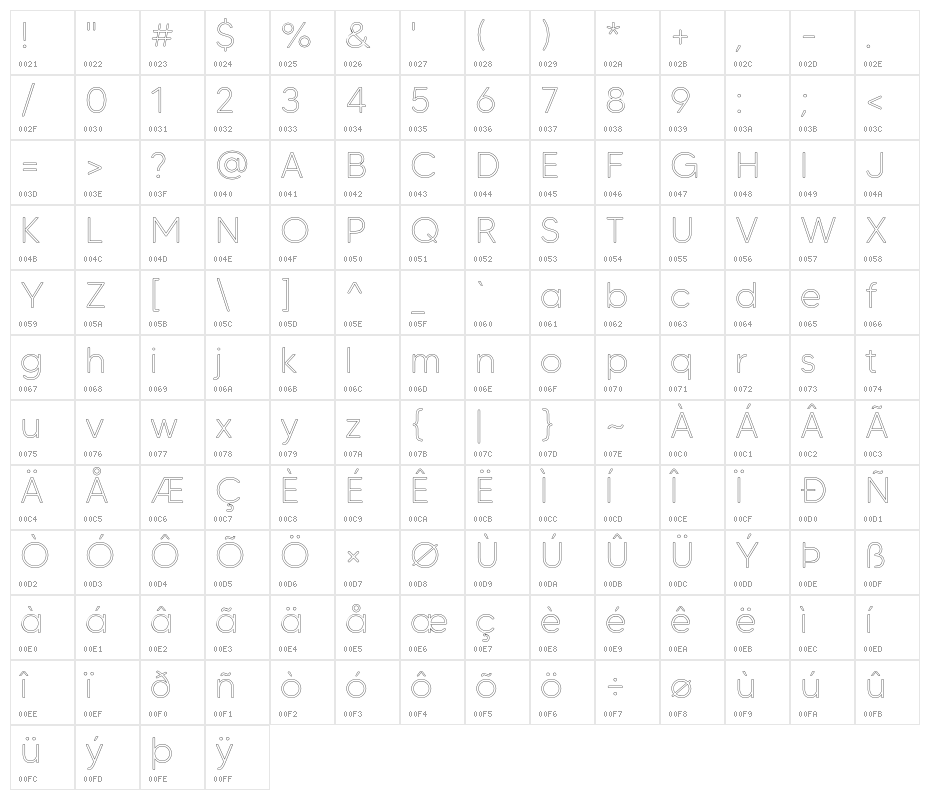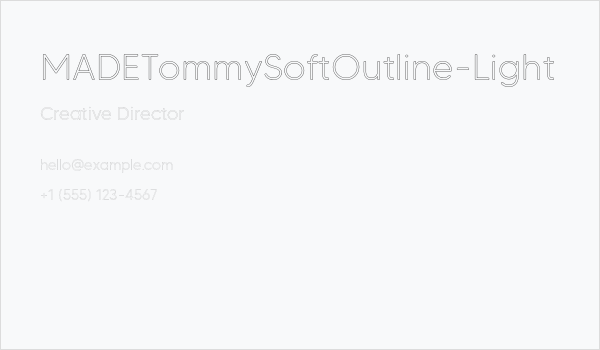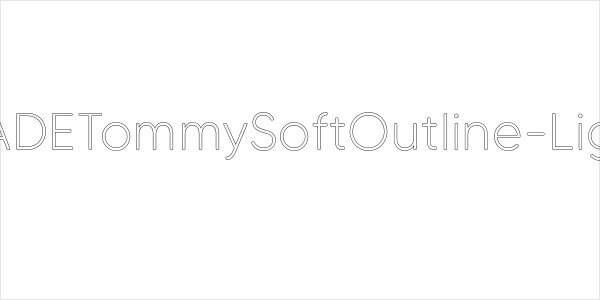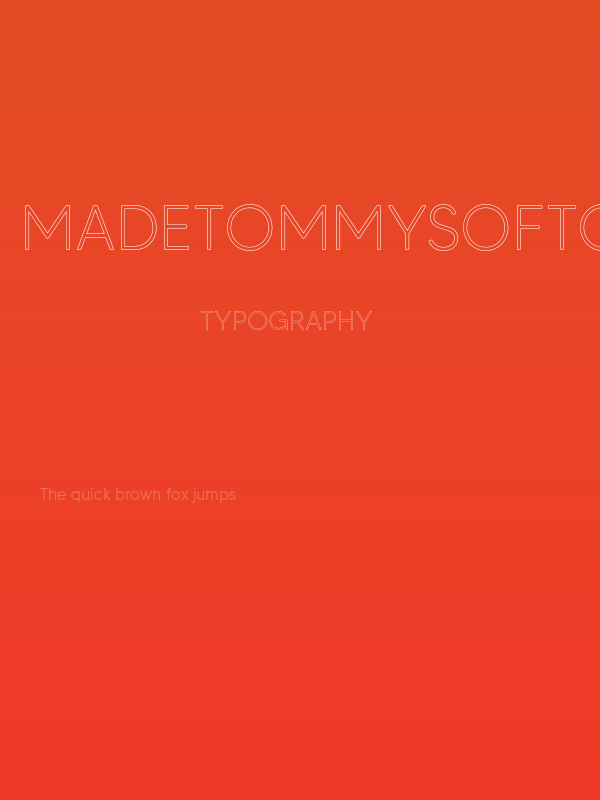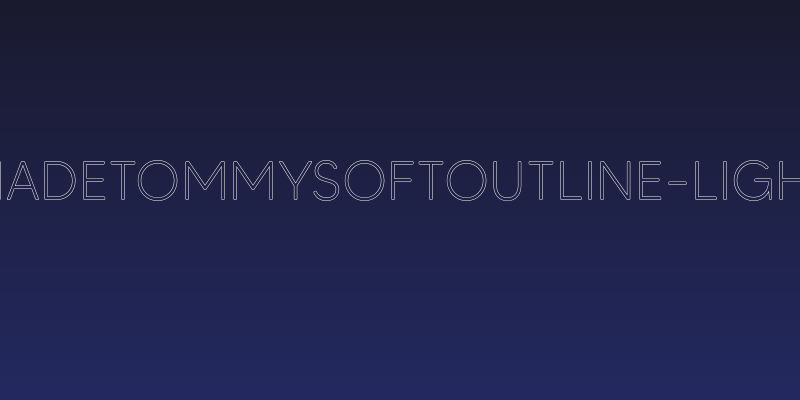
MADETommySoftOutline-Light Font
MADETommySoftOutline-Light Description
This font features a clean, modern outline style with a geometric sans-serif design. Each character is crafted with precision, showcasing a consistent line thickness that gives it a sleek and contemporary appearance. The uppercase and lowercase letters maintain a uniform height and width, contributing to a balanced and harmonious look. The numerals are clear and legible, making them suitable for various applications. Special characters are included, offering versatility for different design needs. The overall aesthetic is minimalistic yet striking, making it ideal for projects that require a modern and sophisticated touch.